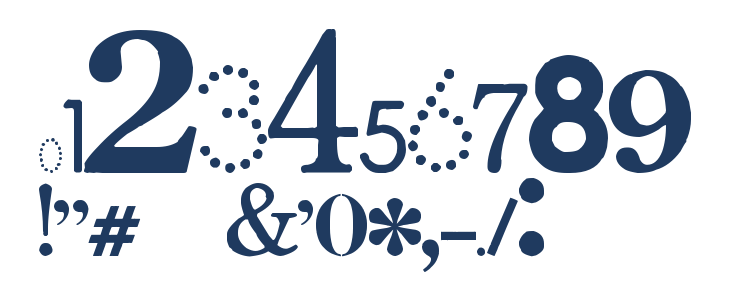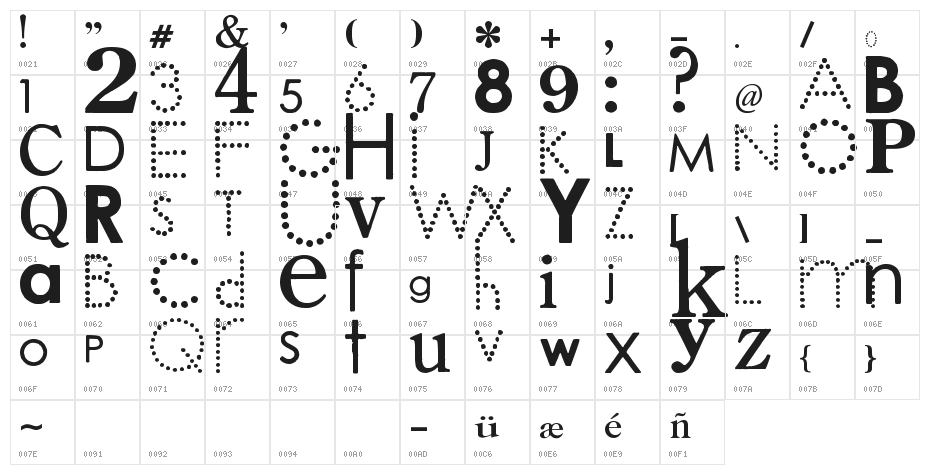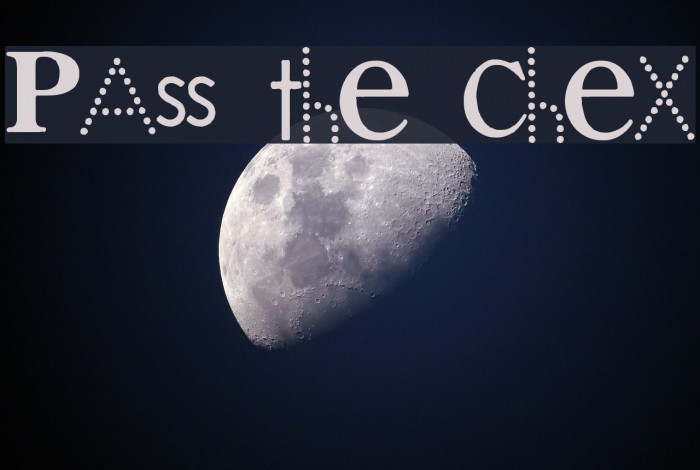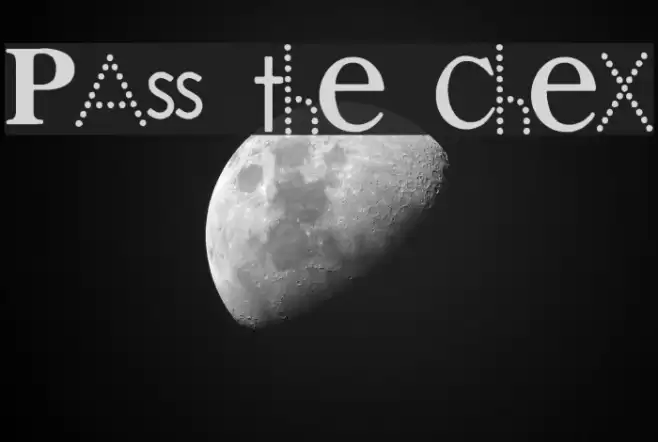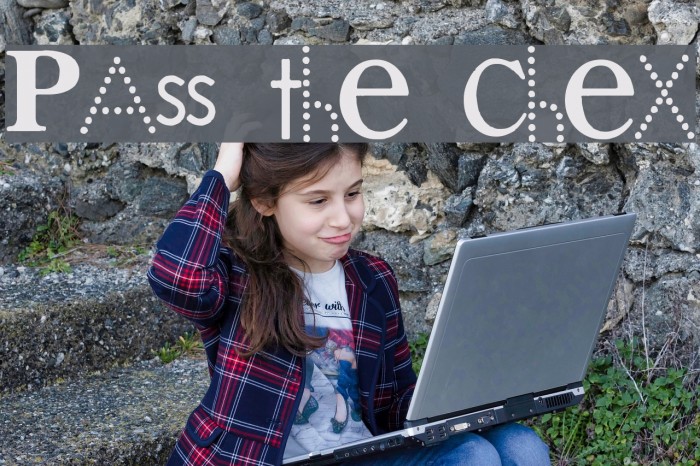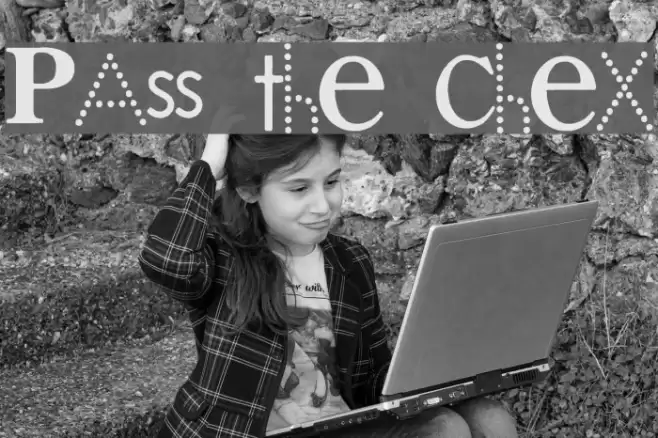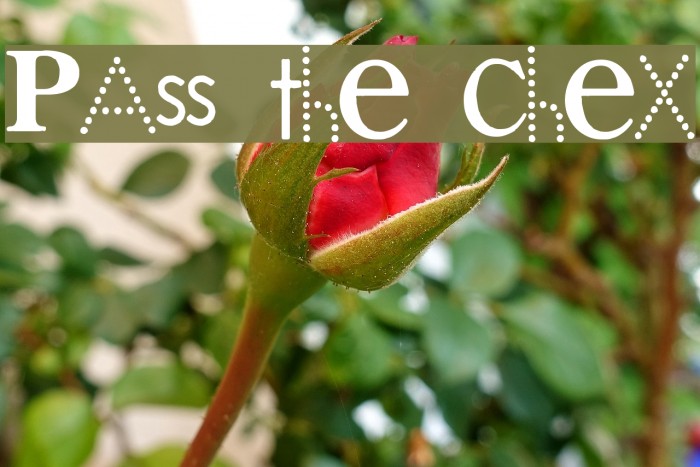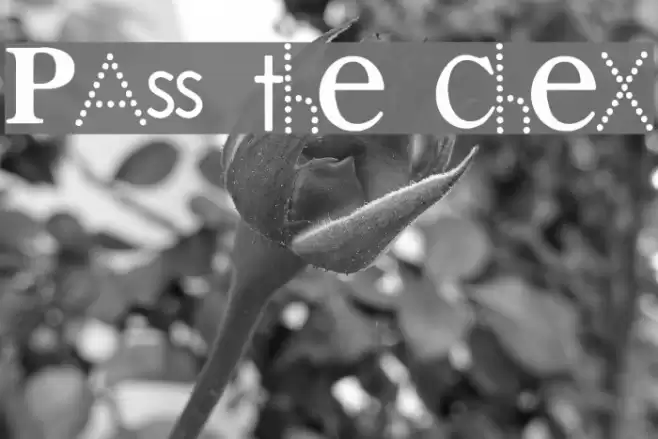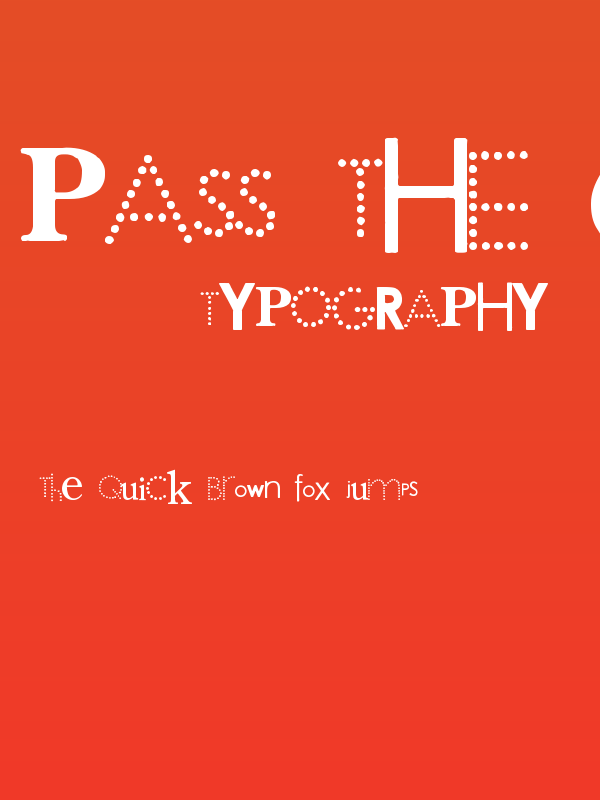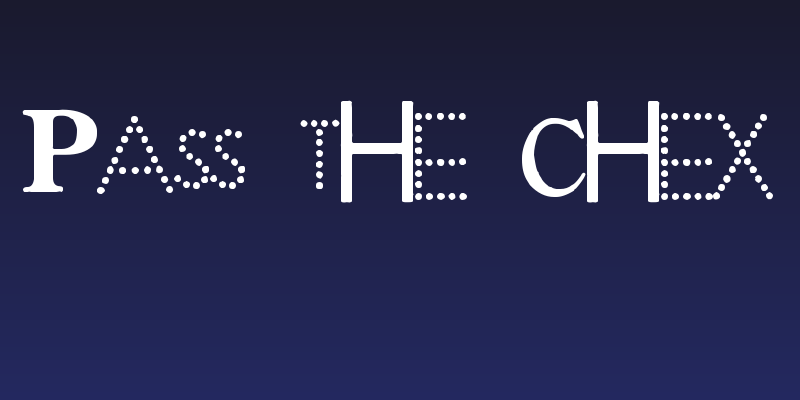
PAss the CheX Font
PAss the CheX Description
This font features a playful and eclectic mix of styles, combining solid, bold characters with dotted outlines. The uppercase letters exhibit a mix of solid and dotted styles, creating a dynamic visual contrast. Lowercase letters continue this theme, with some characters appearing in a dotted style while others are solid. The numbers and special characters also follow this pattern, offering a unique and eye-catching appearance. This font is ideal for creative projects that require a fun and engaging look.
| Overall Style | Playful, Creative |